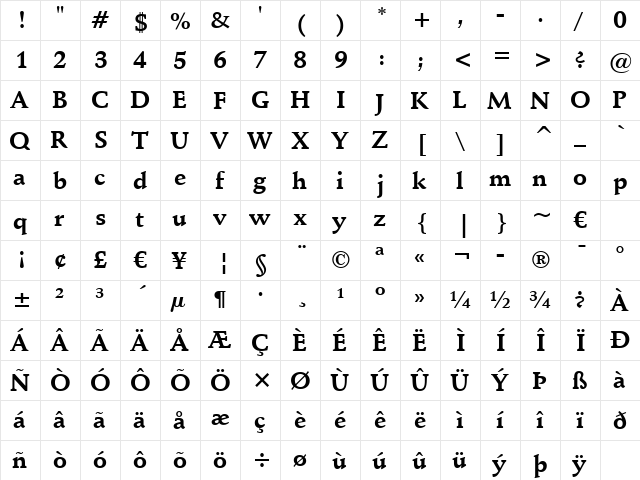
Schneidler BT Bold
Design Context for Schneidler BT Typeface
Schneidler BT takes a measured approach to typography — its balanced proportions and neutral character make it a reliable workhorse for both digital and print work. Its bold stroke weight gives it real presence on the page.